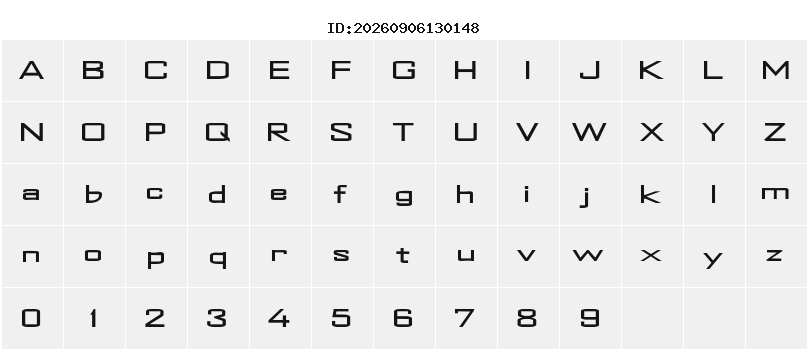
About TapeGun.ttf
TapeGun.ttf is a modern, elegant sans-serif font designed for ultimate readability and visual harmony. Perfect for branding, headlines, web design, and print materials.